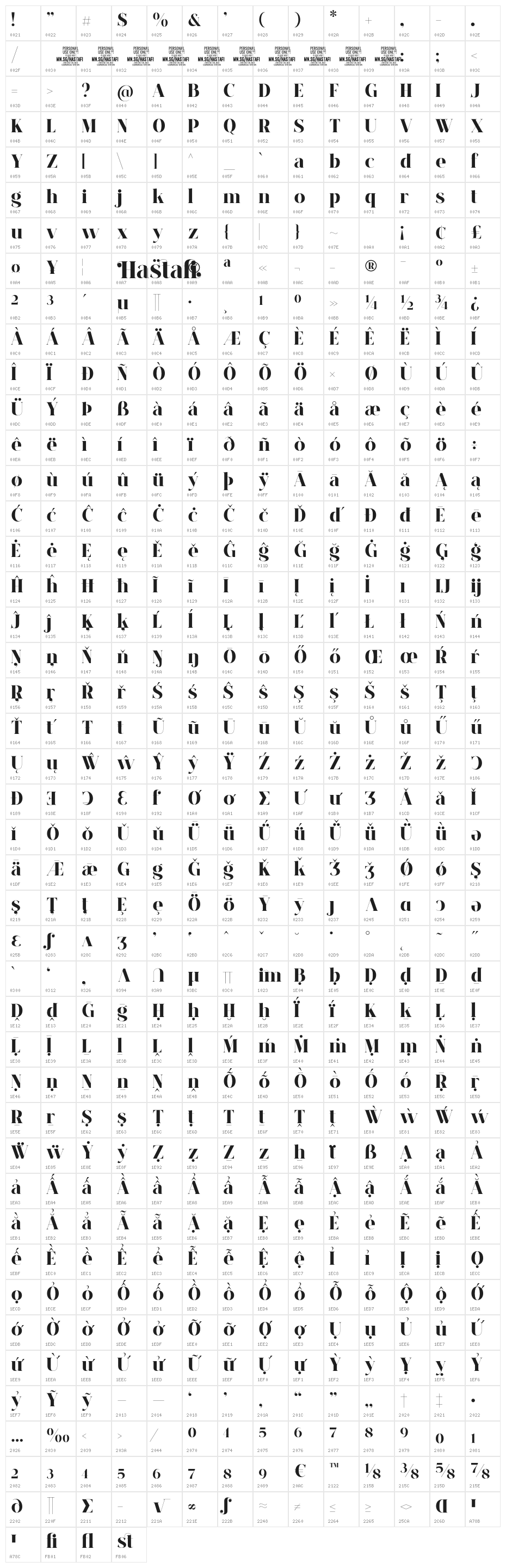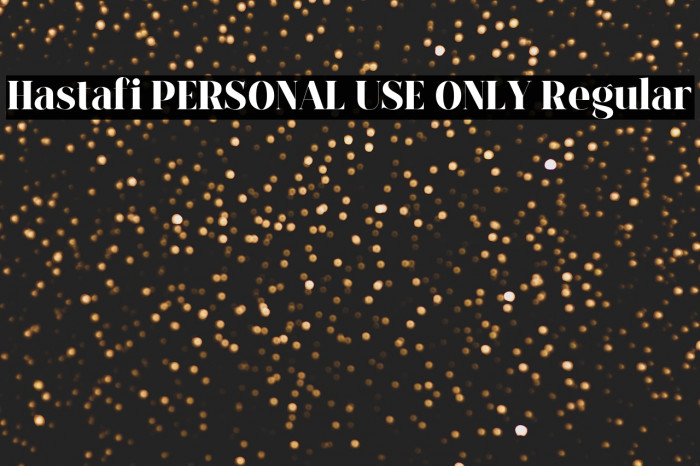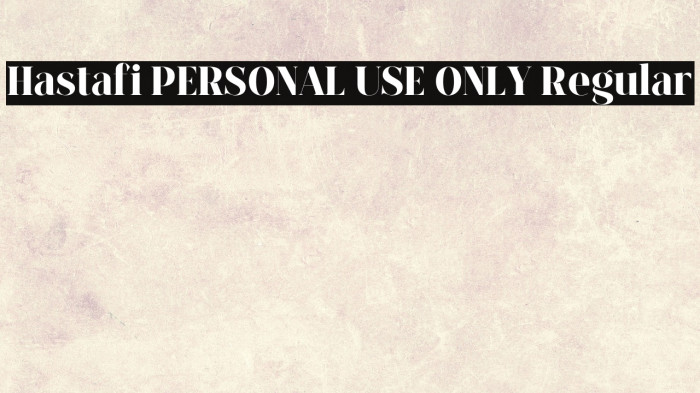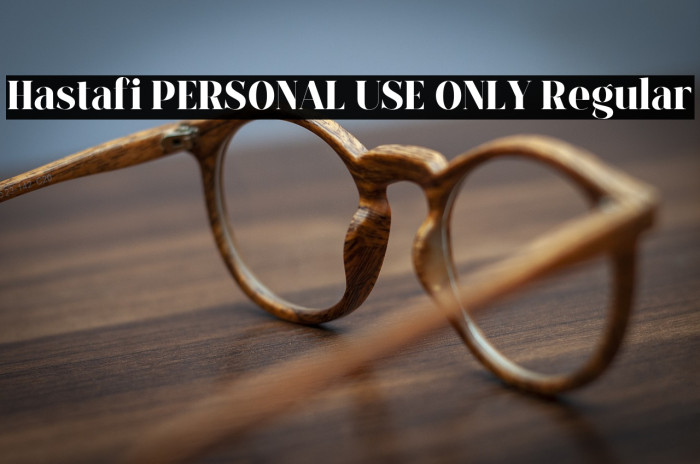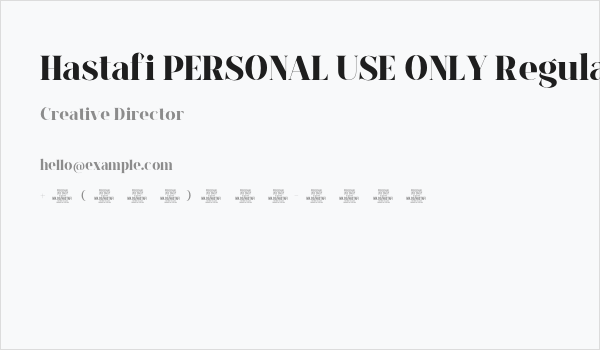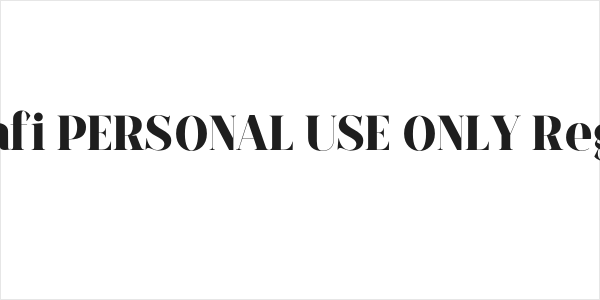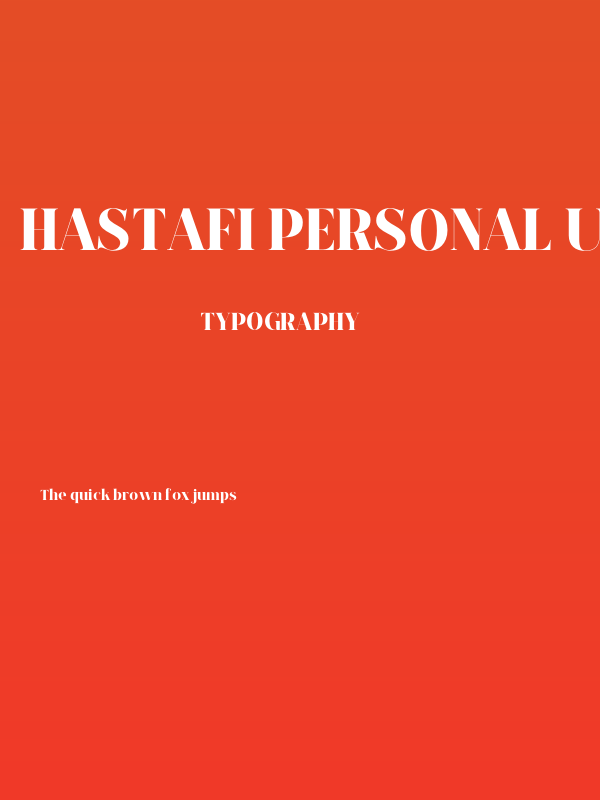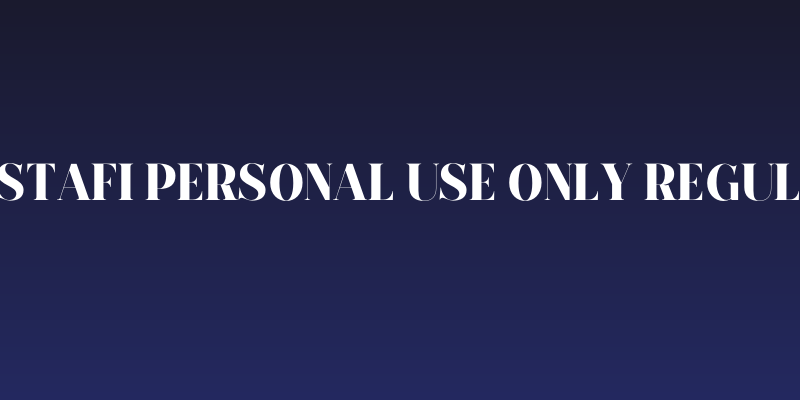
Hastafi PERSONAL USE ONLY Regular Font
Hastafi PERSONAL USE ONLY Regular Description
This font features a bold and striking design with high contrast between thick and thin strokes, giving it a dramatic and elegant appearance. The uppercase letters are particularly wide and commanding, while the lowercase letters maintain a consistent style that complements the uppercase. The serifs are pronounced, adding a touch of sophistication and classic appeal. The numbers and special characters are designed to match the overall aesthetic, ensuring a cohesive look across all text elements. This font is ideal for making a strong visual impact.